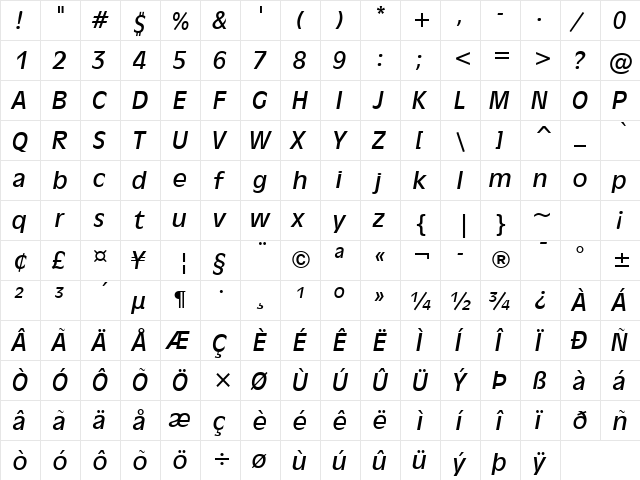
Incised901 BT Italic
Design Context for Incised901 BT Typeface
Incised901 BT takes a measured approach to typography — its balanced proportions and neutral character make it a reliable workhorse for both digital and print work. The slanted form adds forward momentum and visual energy.